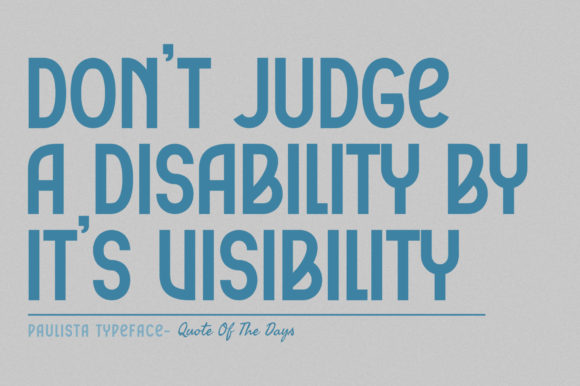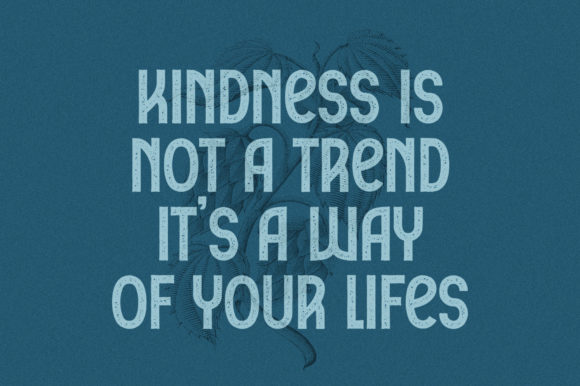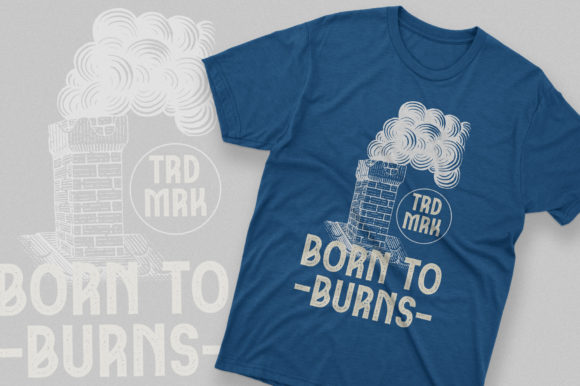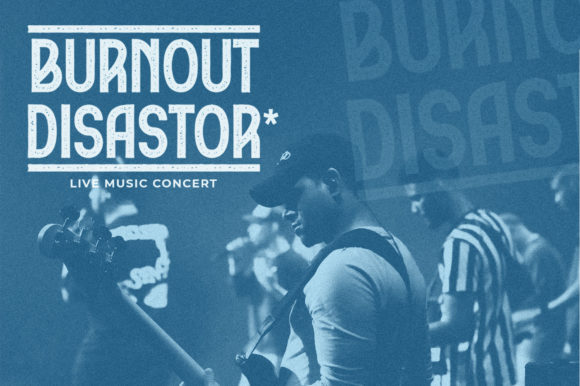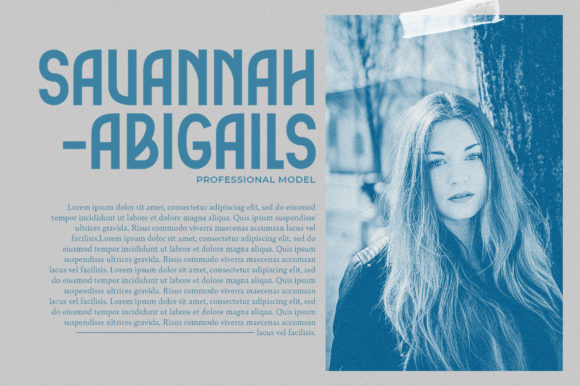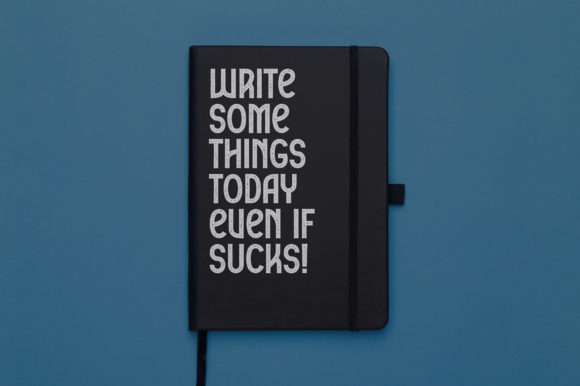
Introduction to Paulista Font
Paulista is a cool, display font.
Add this thick lettered and vintage styled font to your creations such as labels, branding, logos and so much more .